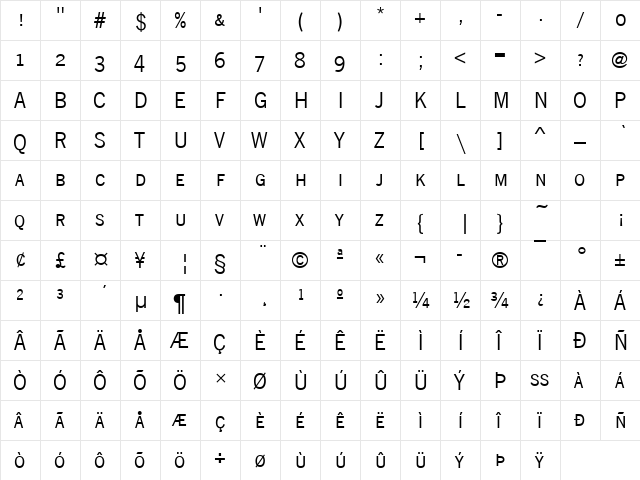
NewsGotSCTReg Regular
Design Context for NewsGotSCTReg Typeface
NewsGotSCTReg offers clean, dependable letterforms without strong stylistic allegiance, making it a practical choice for designers who need flexibility.